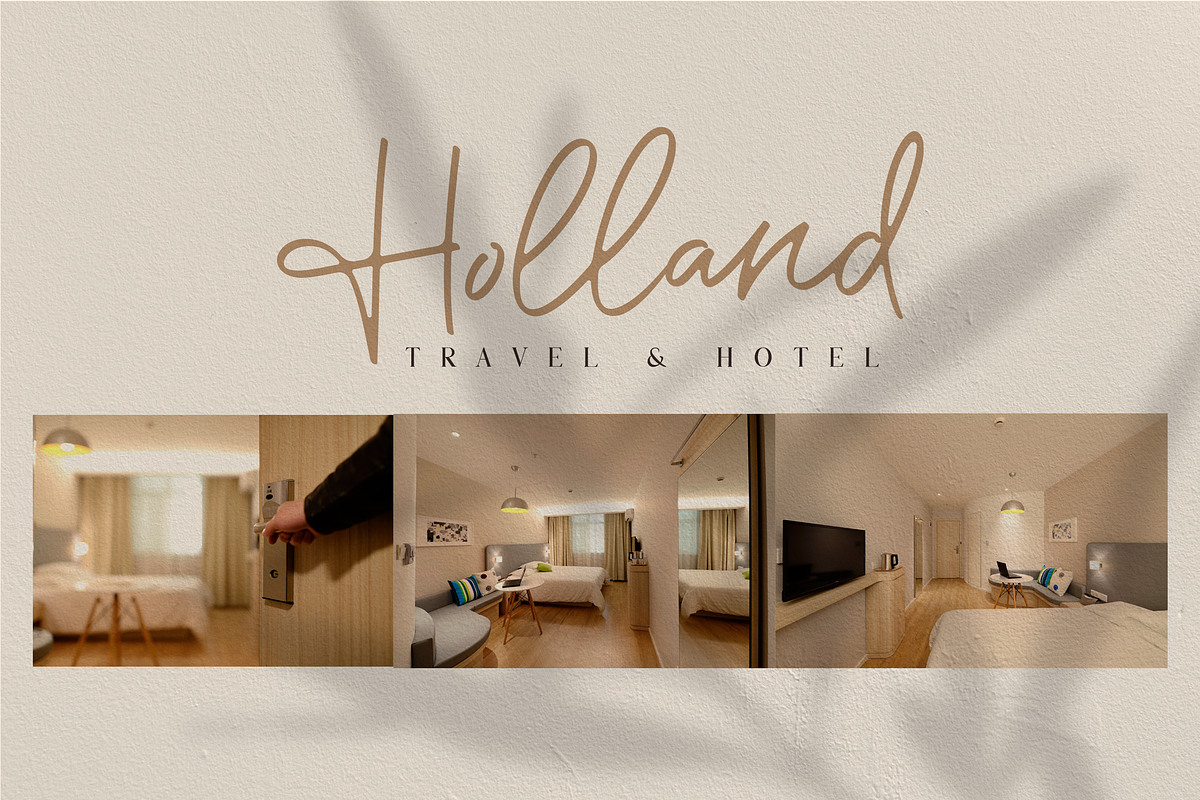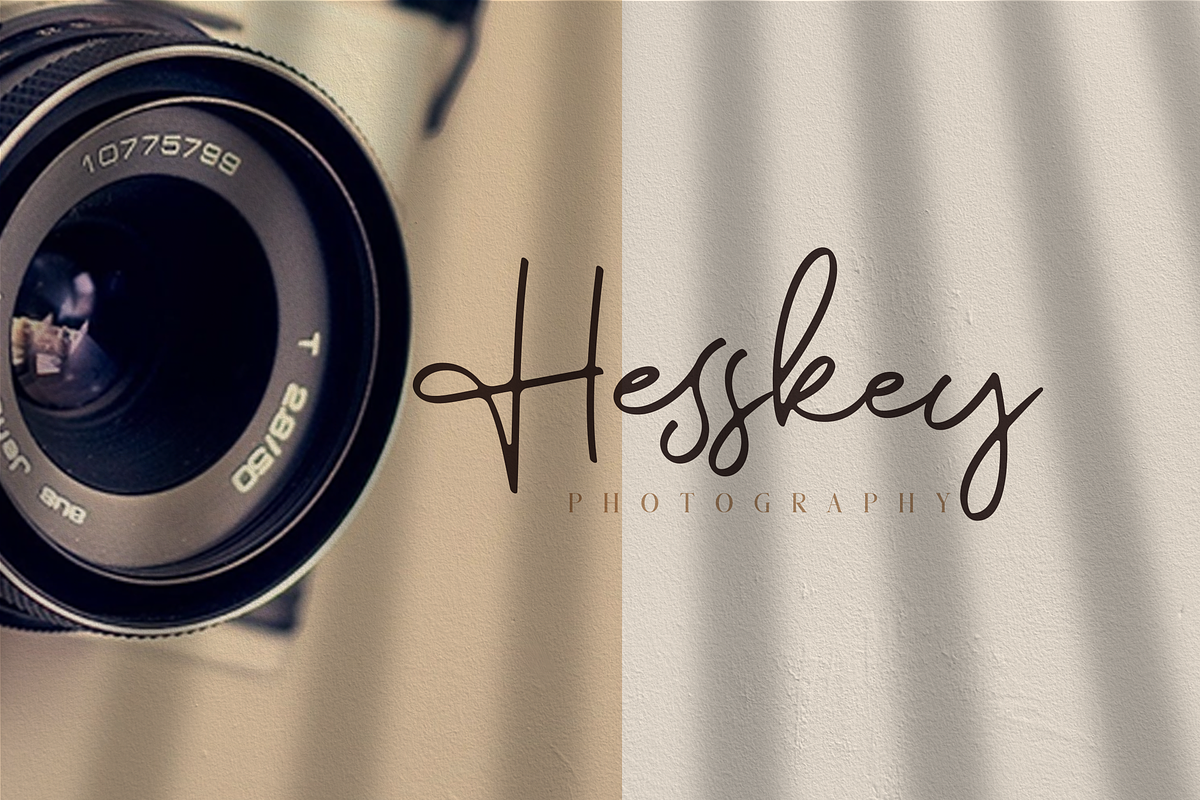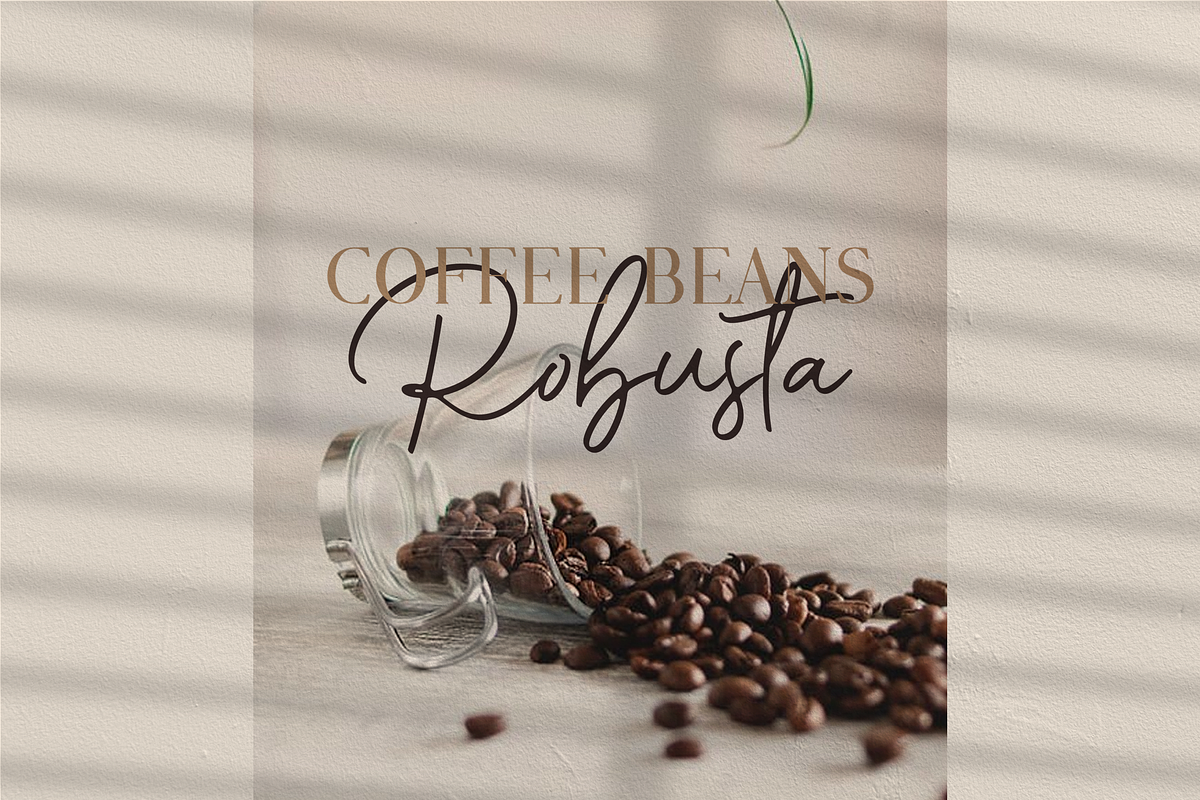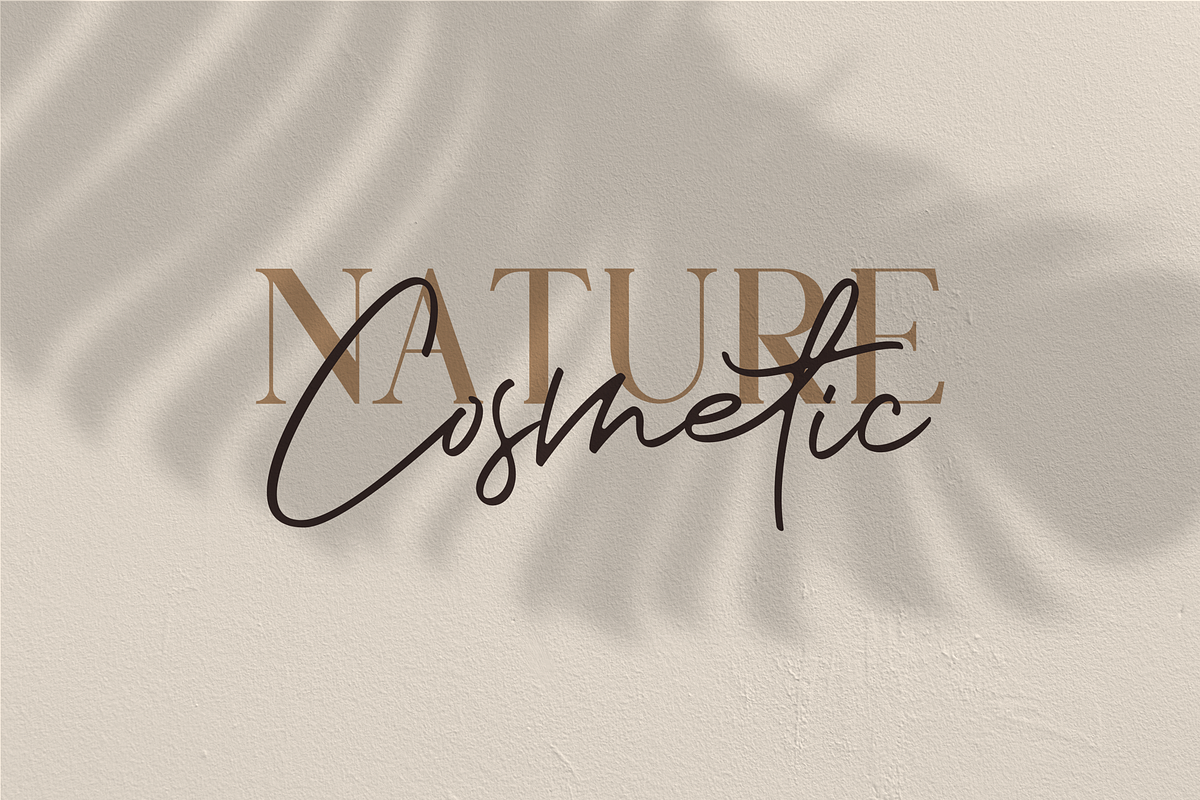
Romantic Couple // Font Duo
Romantic Couple is the perfect collection of fonts for any design project that requires a light and charming feel. Use it to turn any design project into a true standout!
Multilingual support - spread your message globally AÀÁÂÃÄÅCÇDÐEÈÉÌÍÎÏIÌÍÎÏNÑOØÒÓÔÕÖUÙÜÚÛWYÝŸÆßÞþ Encoded PUA Characters
Romantic Couple // Font Duo by Bluestudio fits naturally into Branding, posters, packaging, typography.